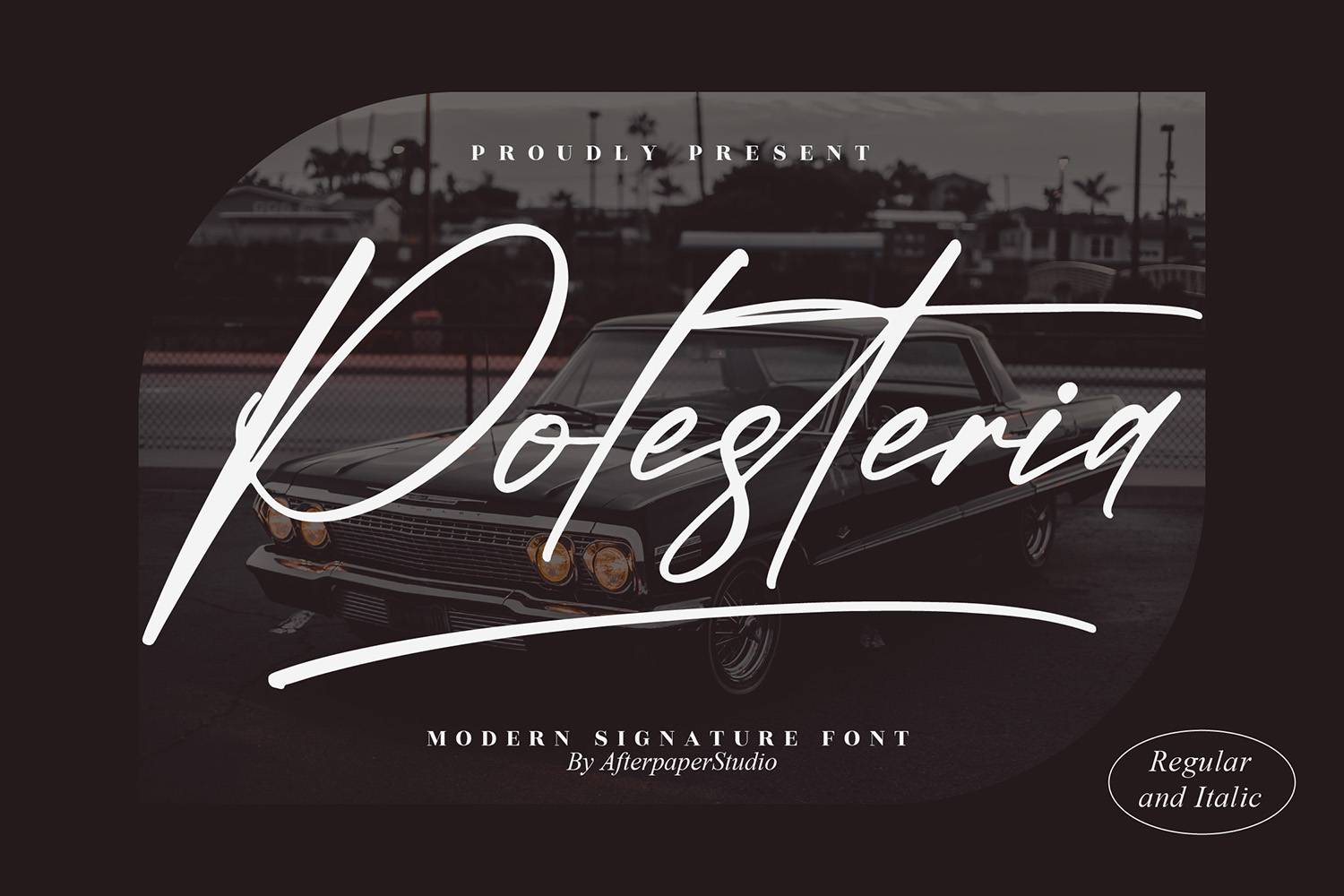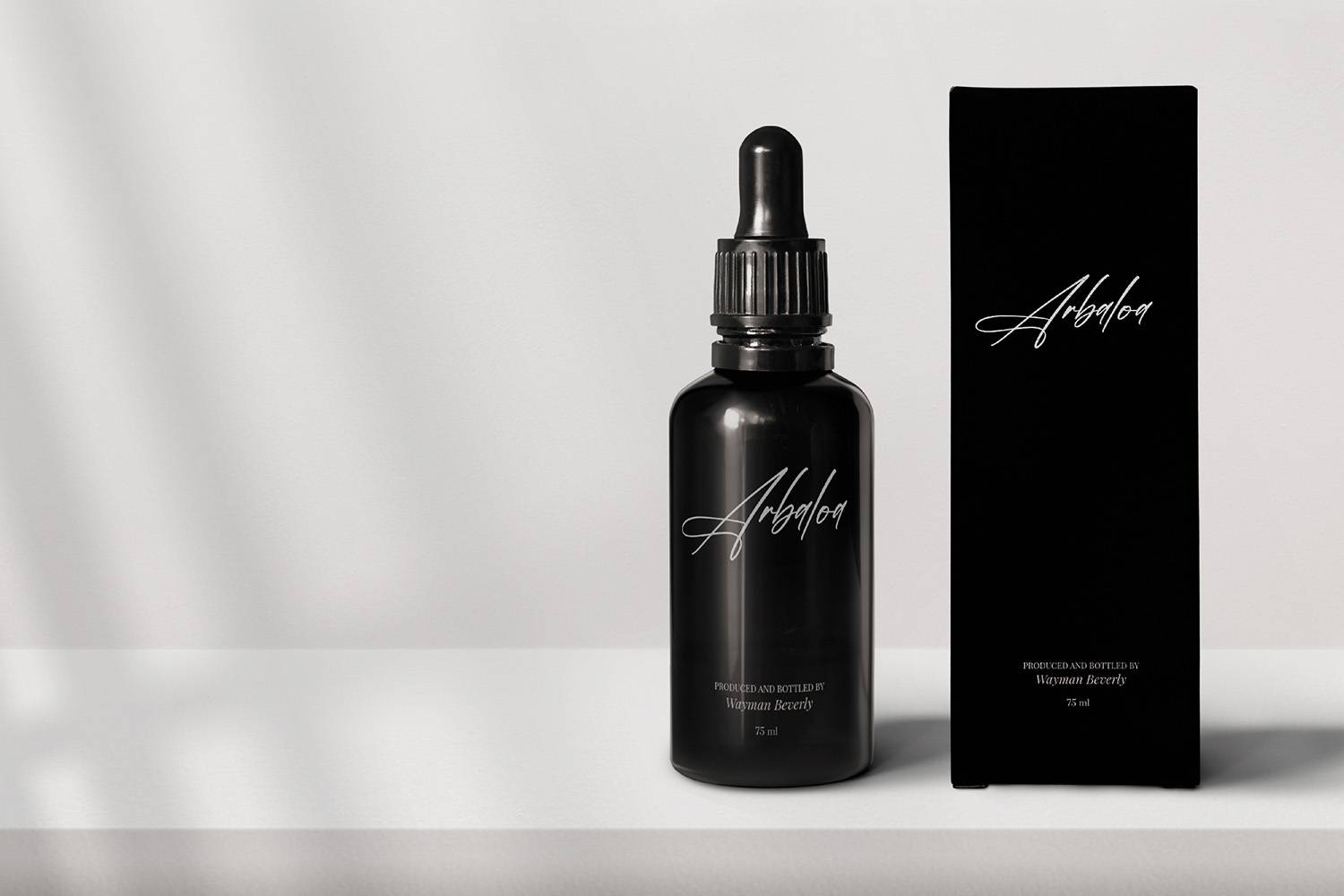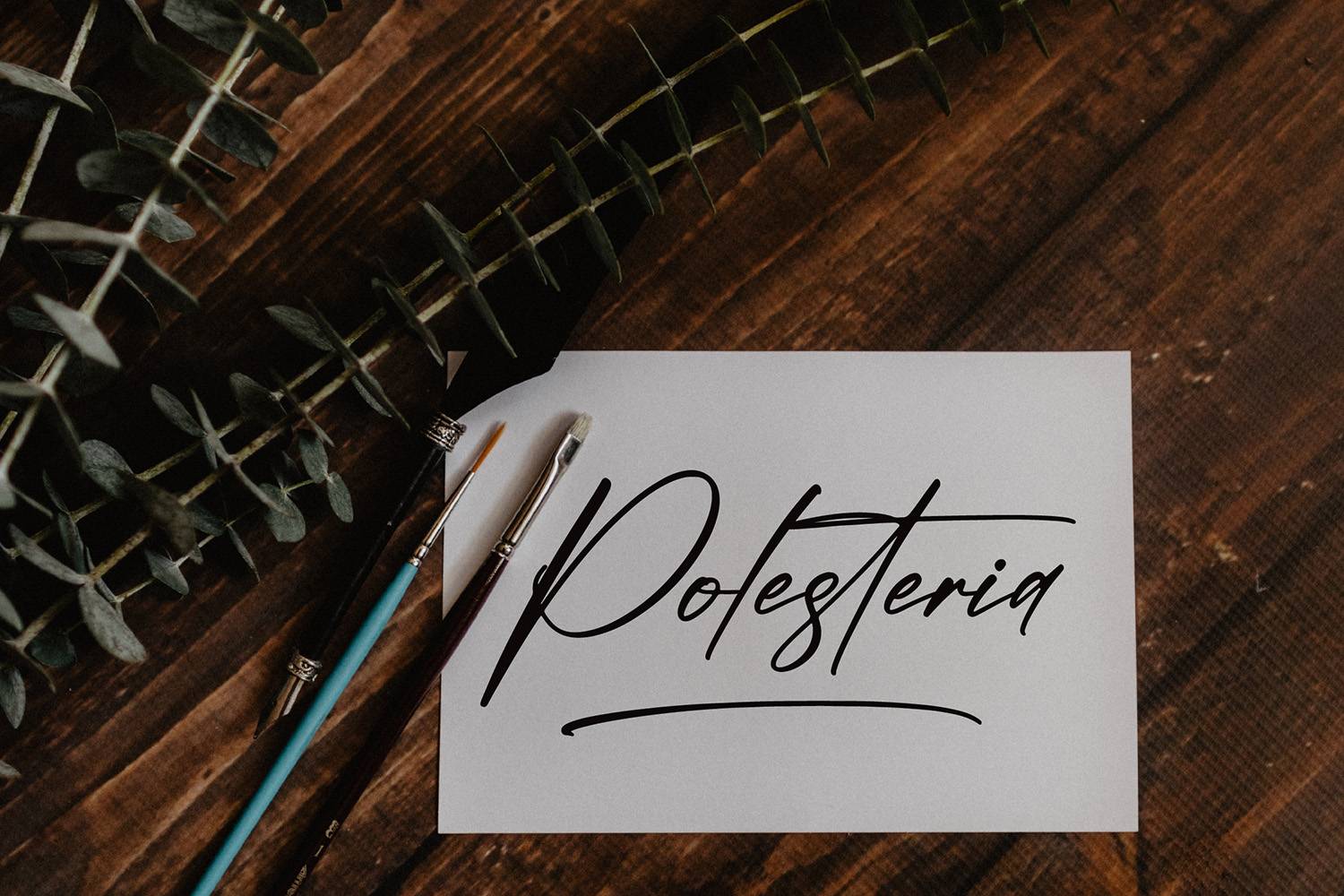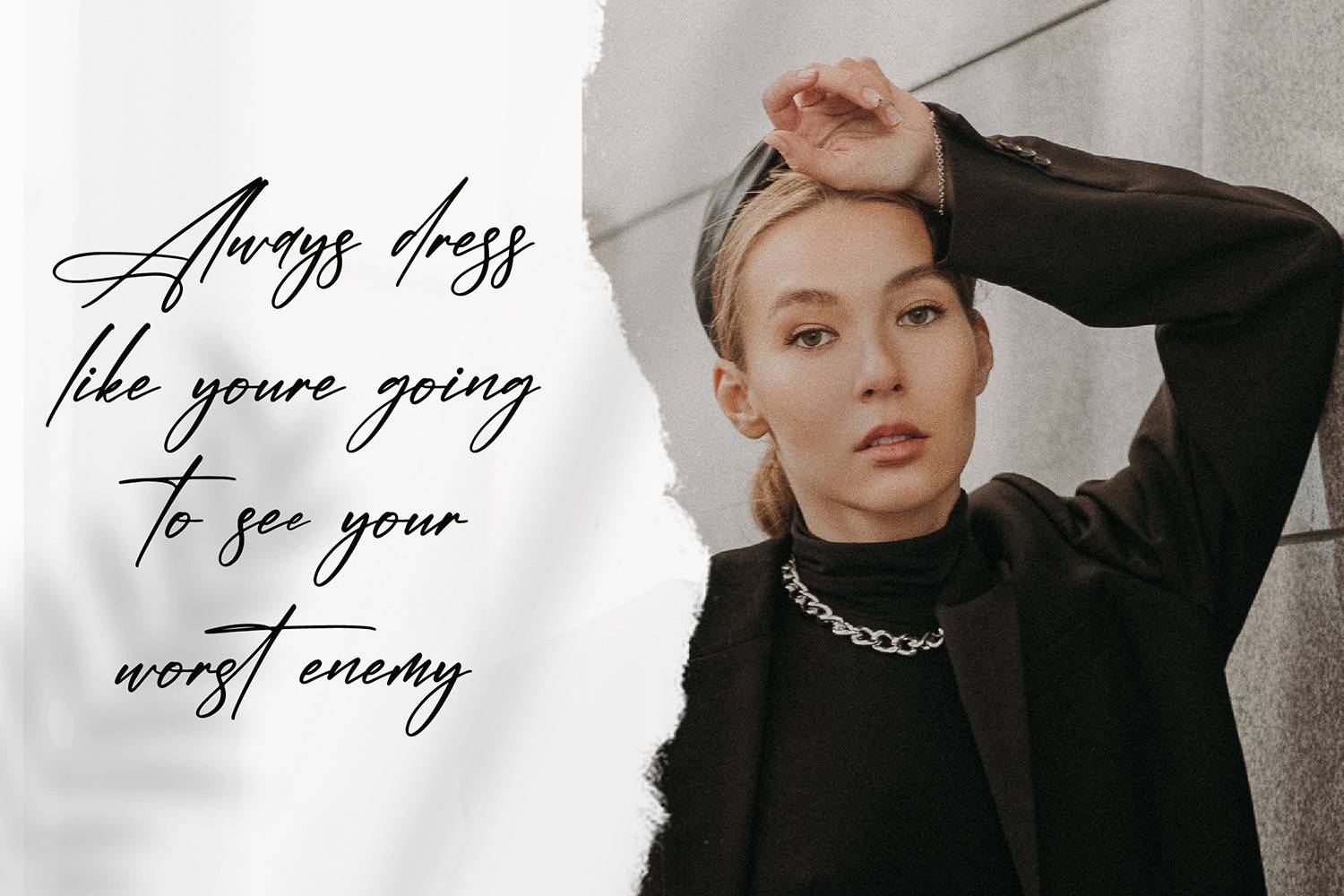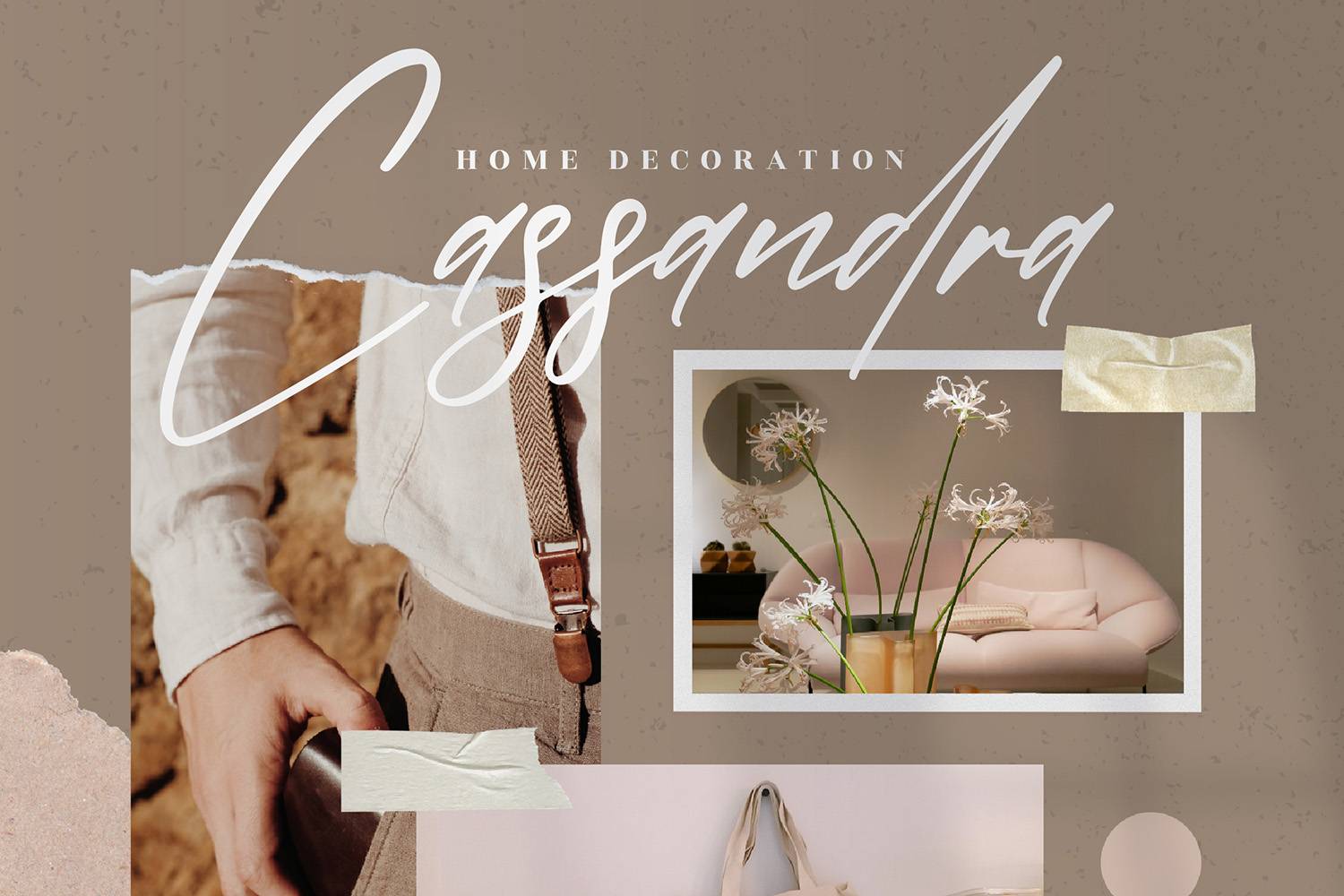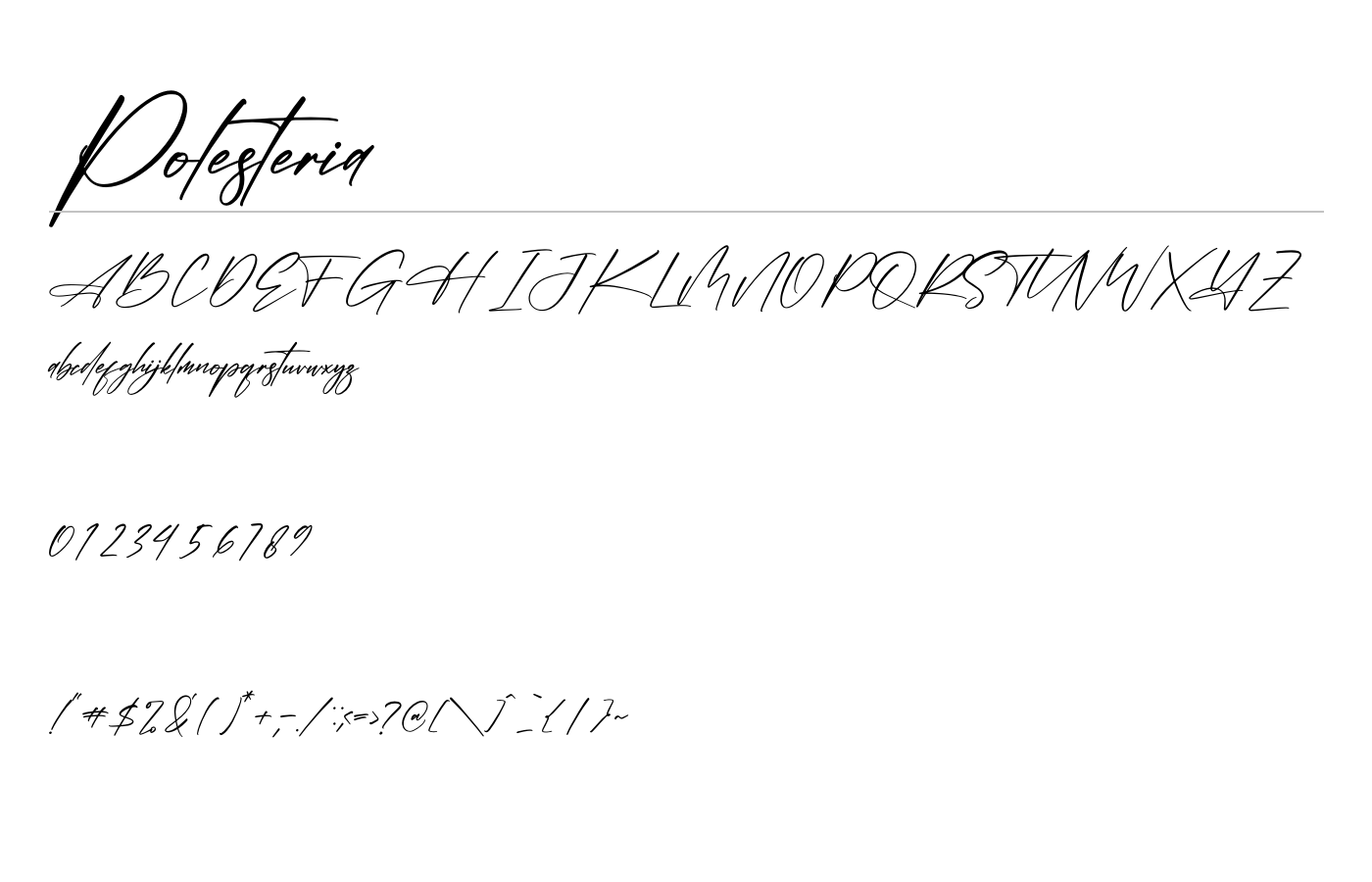
Polesteria is a delicate, modern script font characterized by its elegant, flowing strokes and high contrast between thick and thin lines. Its handwritten style with natural, slightly irregular letterforms makes it perfect for adding a personal, sophisticated touch to branding, invitations, and fashion-related designs. This font shines in headline or logo use where a stylish, graceful mood is desired.
Polesteria Font
About Polesteria Font